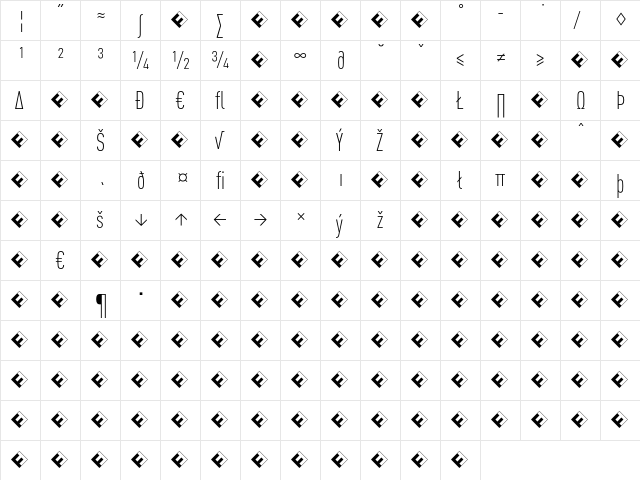
DINCond-LightExpert Regular
Design Context for DINCond-LightExpert Typeface
DINCond-LightExpert offers clean, dependable letterforms without strong stylistic allegiance, making it a practical choice for designers who need flexibility. The delicate stroke weight brings airiness and refinement to layouts. Its narrow stance lets it pack a punch even in space-constrained designs.